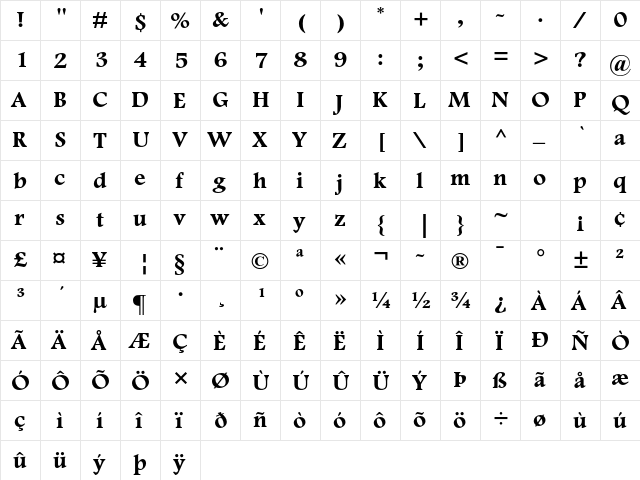
Footlight MT Std Bold Font Preview
Footlight MT Std Bold
Footlight MT Std Bold Font Details
| Foundry | Agfa Monotype Corporation |
Design Context for Footlight MT Std Typeface
Footlight MT Std takes a measured approach to typography — its balanced proportions and neutral character make it a reliable workhorse for both digital and print work. The heavy weight commands attention and anchors typographic hierarchies.